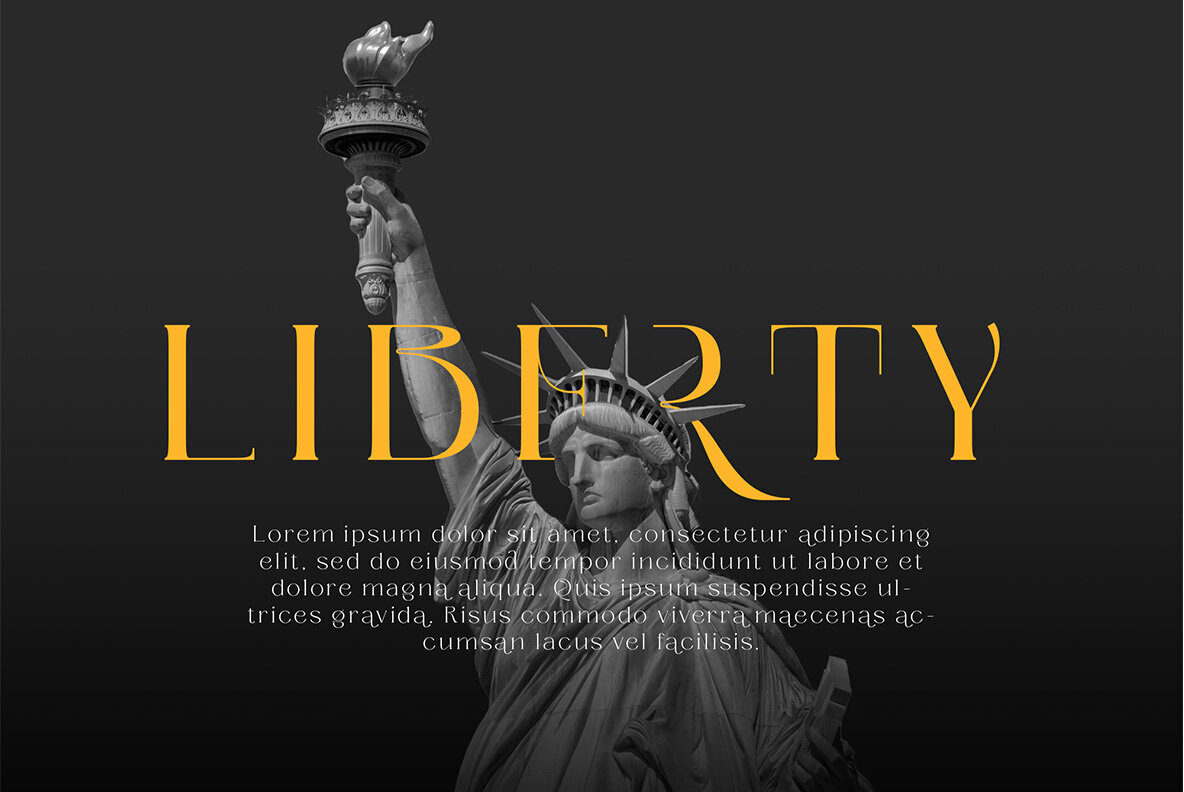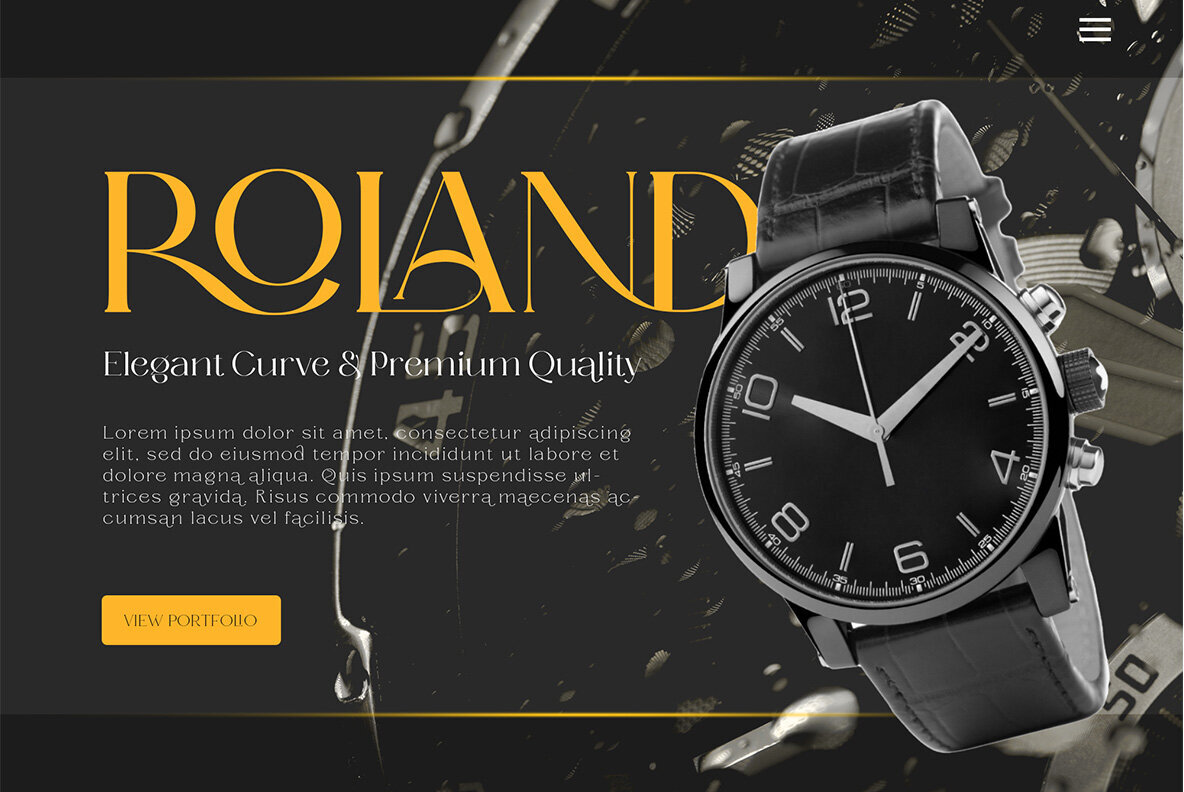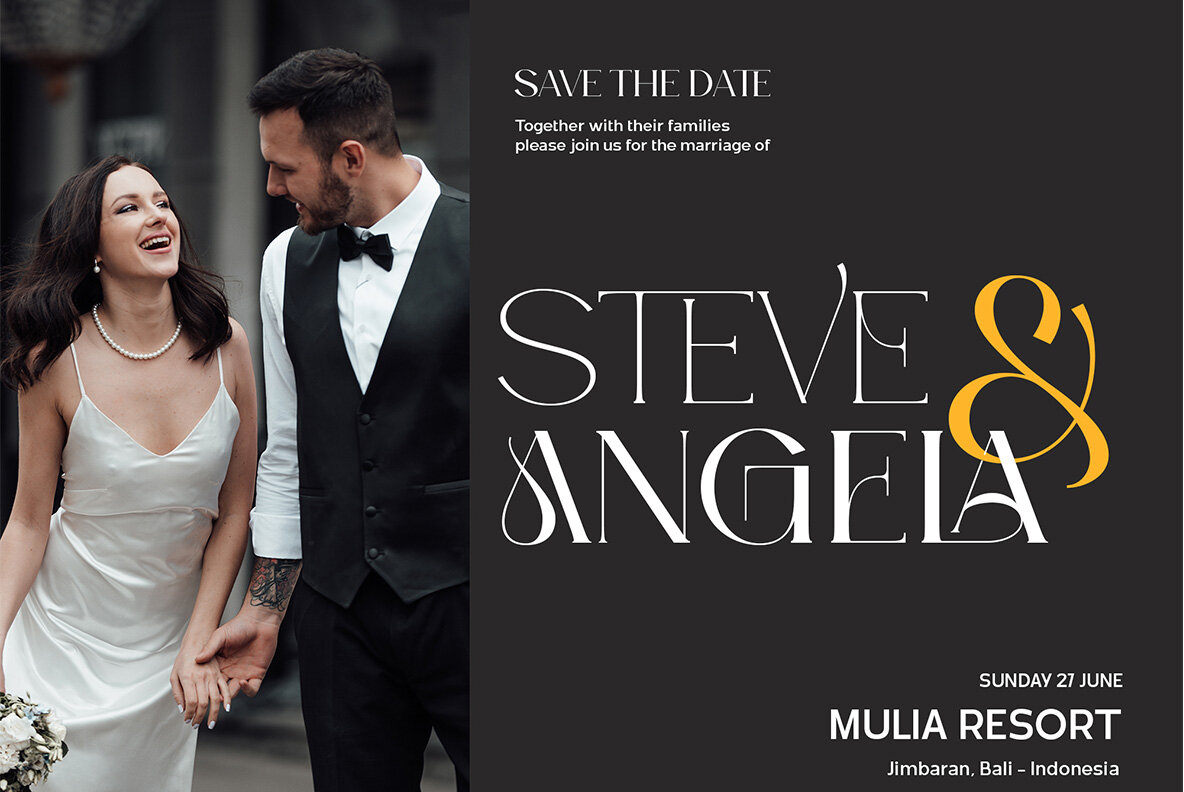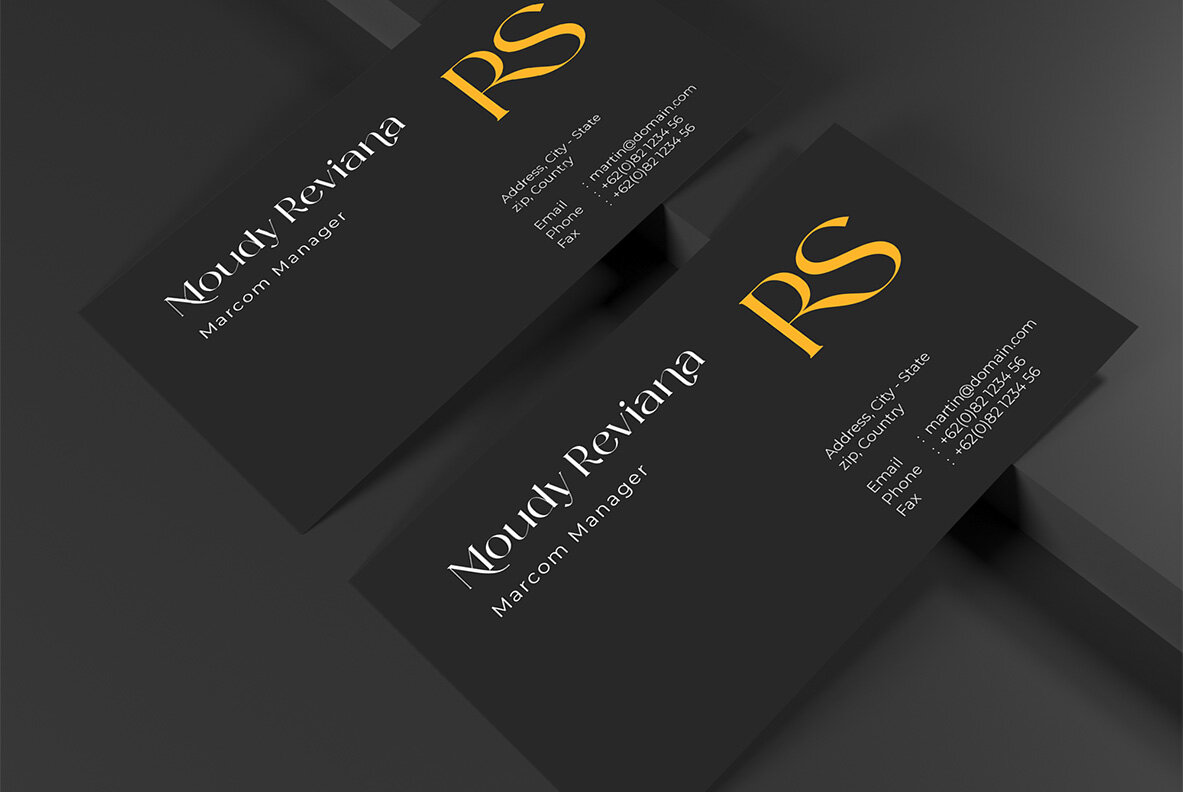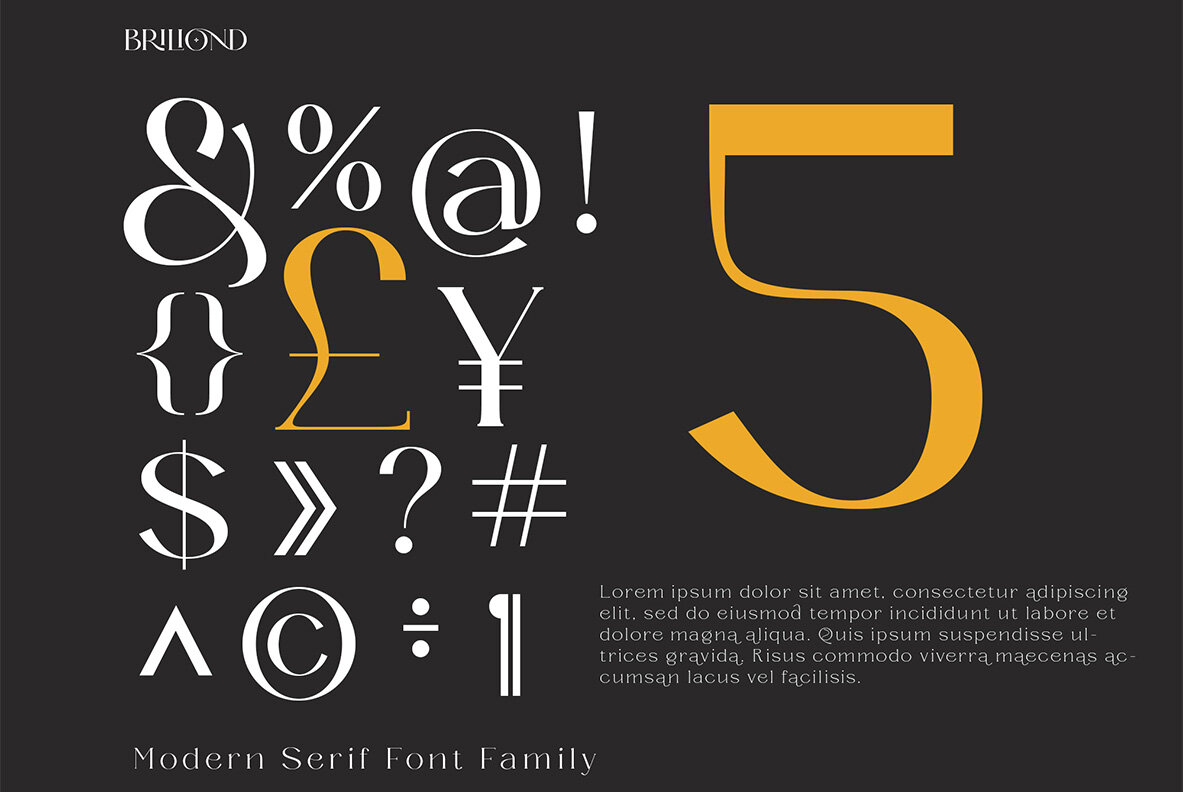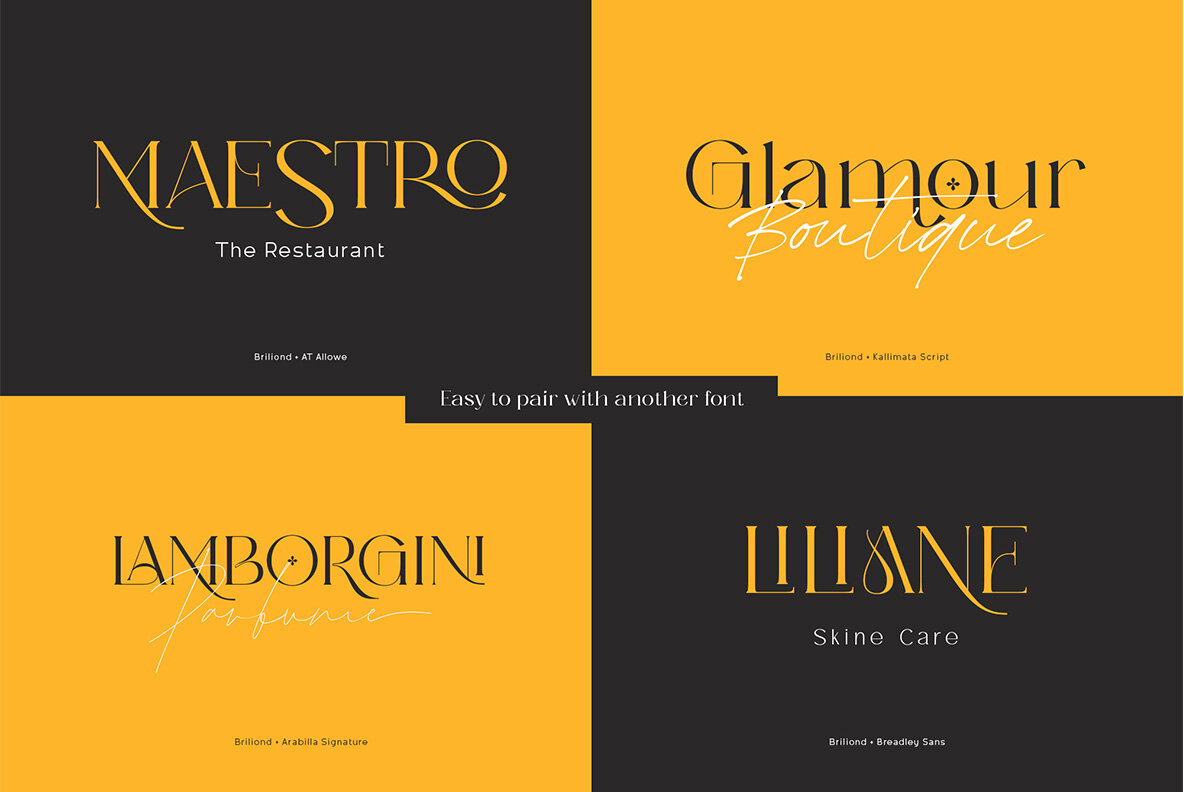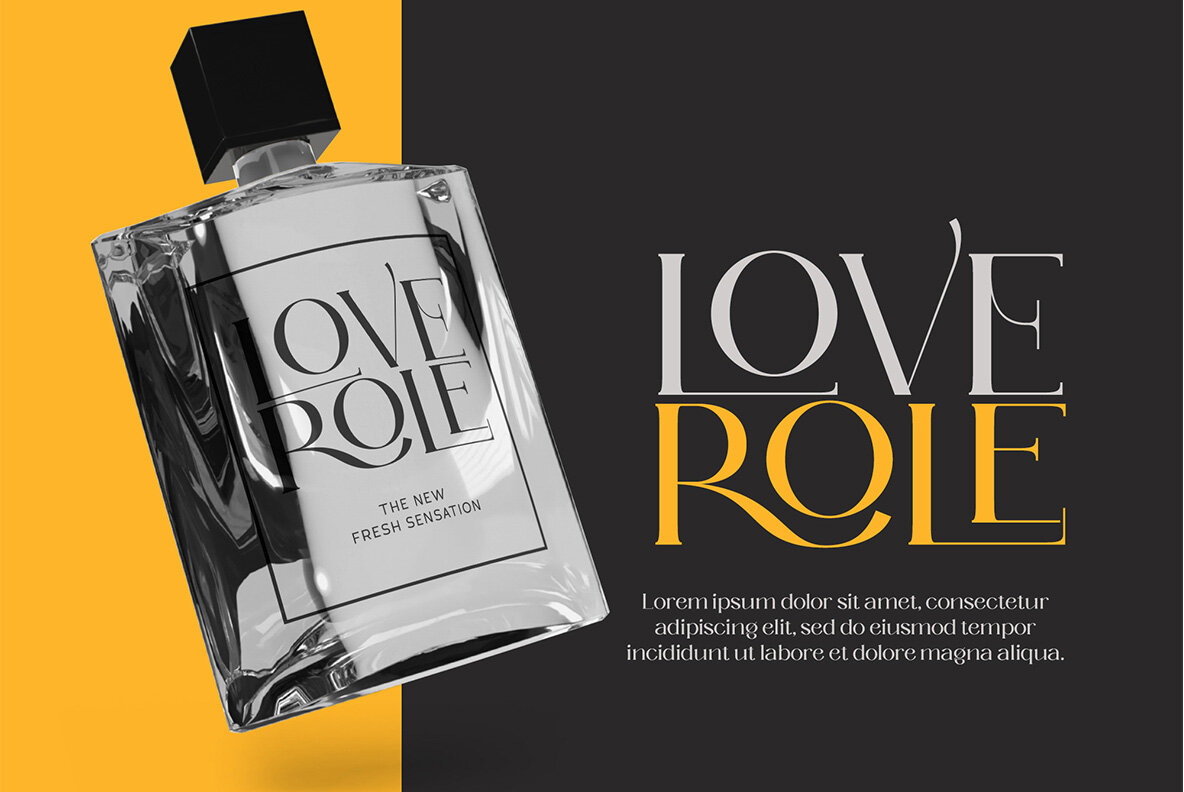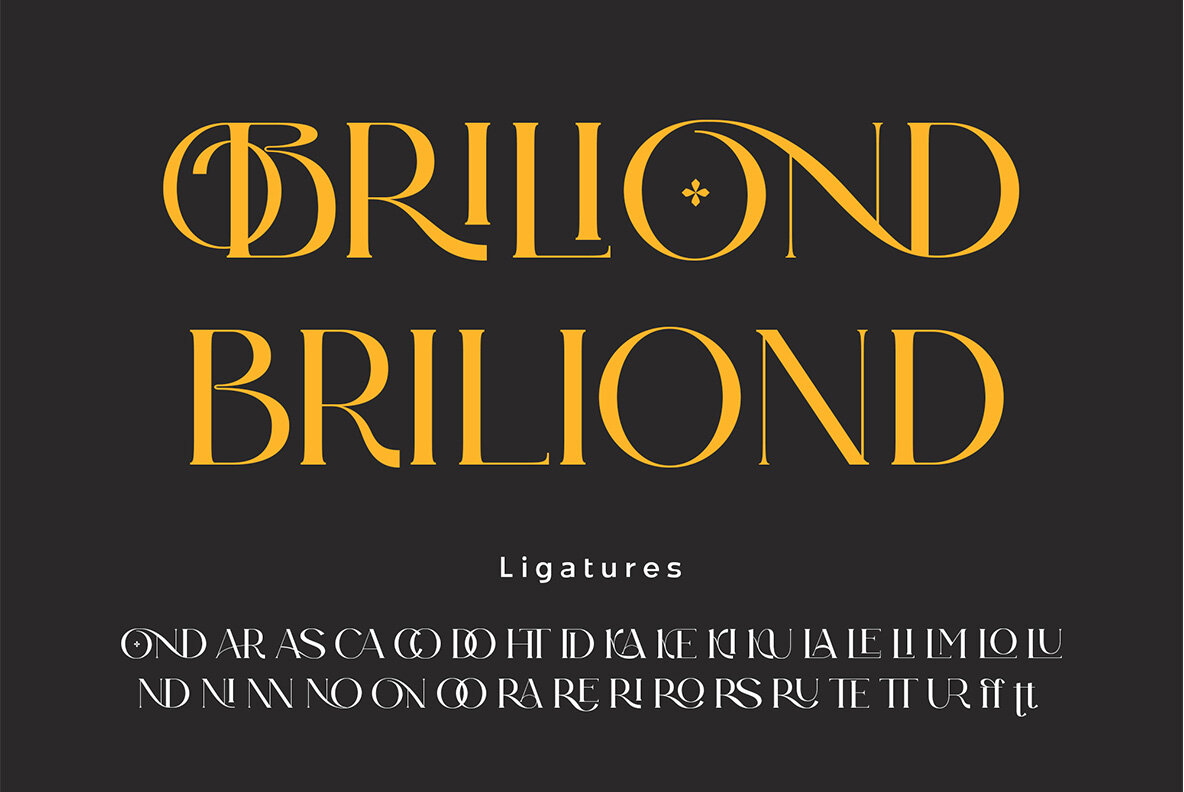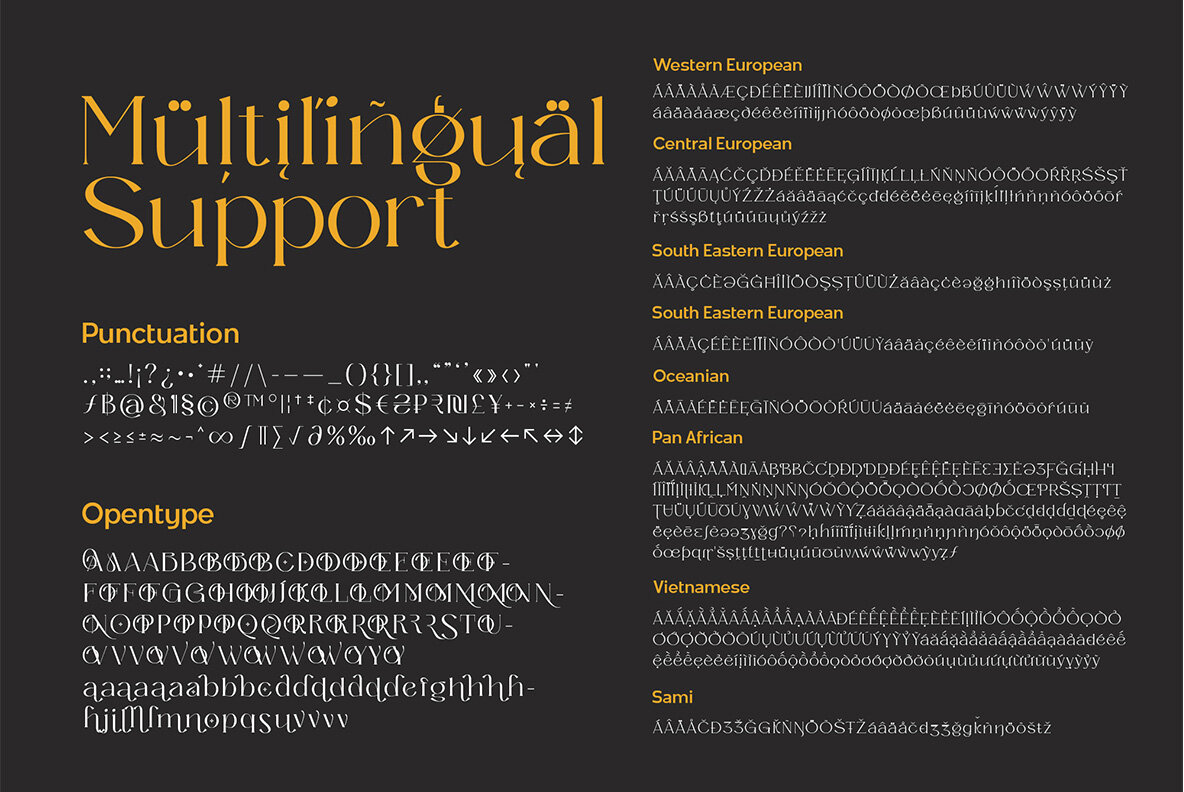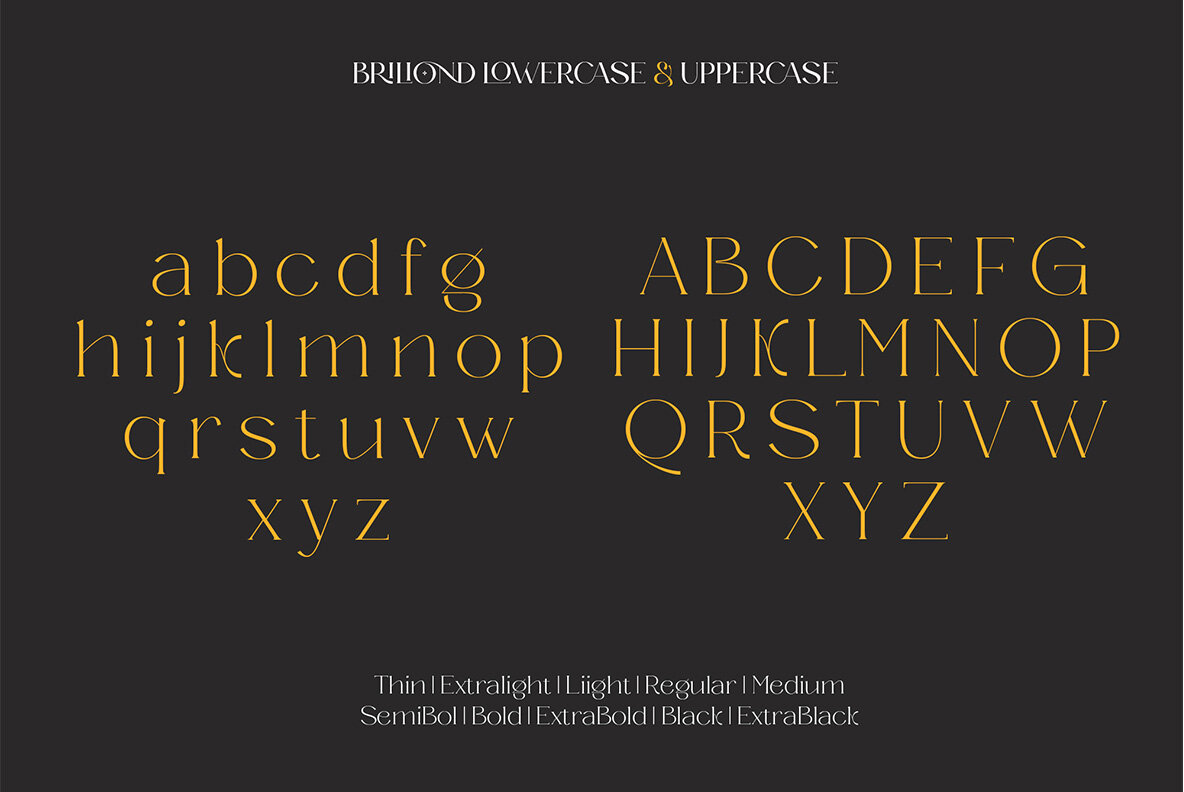
Briliond Font
Briliond presents an aesthetic blend of modernity and elegance, making it a versatile choice for branding initiatives. Its serif-style taglines are both stylish and sophisticated, adapting to a variety of projects with grace. This font offers ten distinct weights, from thin to black, catering to diverse design needs. Designed to enhance brand identity, Briliond shines in projects where an elegant yet commanding presence is required. It pairs harmoniously with modern serifs and scripts or stands independently as an impressive title or brand icon. This adaptability makes it suitable for business cards, logos, and official documents. Briliond's multilingual capabilities and stylistic alternatives elevate its usefulness in diverse settings, making it a staple for graphic designers seeking elegance and functionality.Briliond: A Contemporary Serif for Elegant Branding